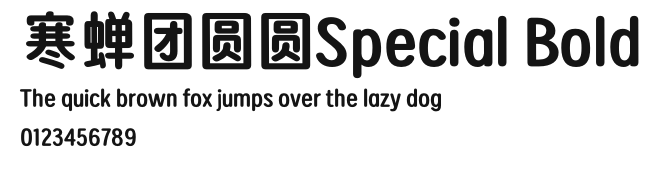
• Font Name: 寒蝉团圆圆Special Bold
• Full Font Name: 寒蝉团圆圆Special UltraBold
• Character Count: 7867
• Designer: 寒蝉字型
About 寒蝉团圆圆Special Bold.otf
寒蝉团圆圆Special Bold.otf is a modern, elegant sans-serif font designed for ultimate readability and visual harmony. Perfect for branding, headlines, web design, and print materials.